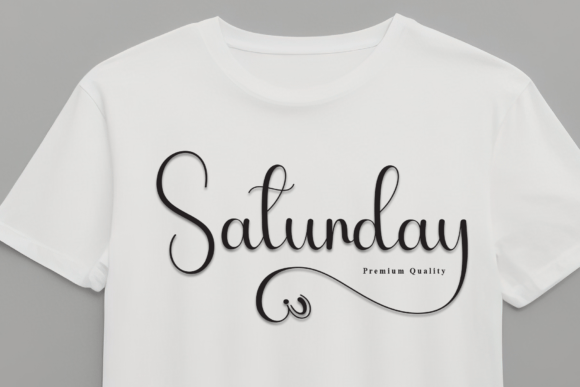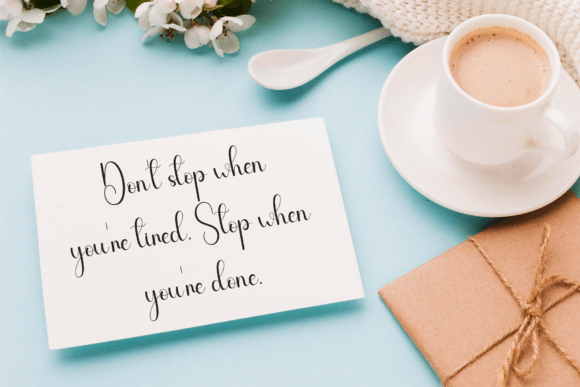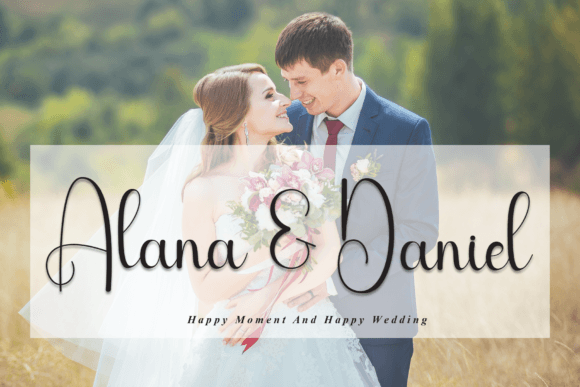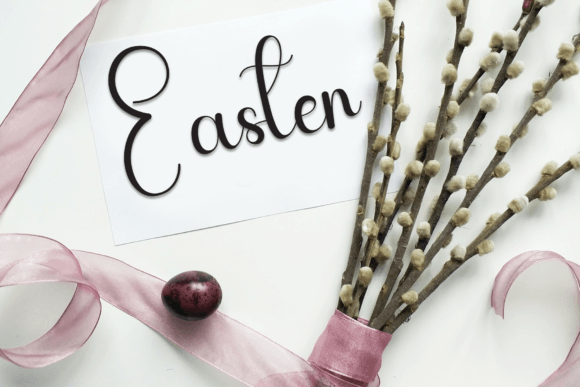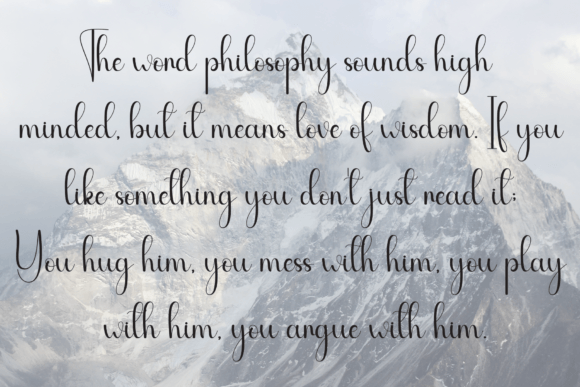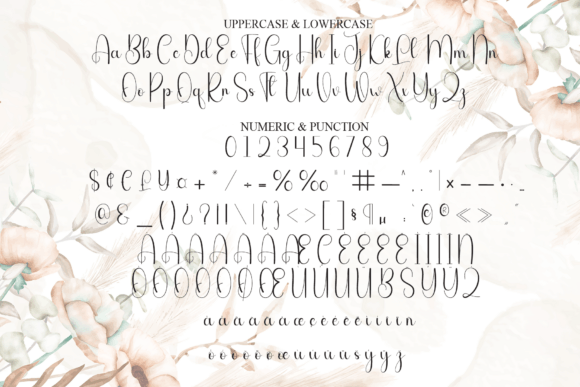
Discover the Delightful Charm of Anuttenty Font
Have you ever been in the middle of designing a project, and suddenly, you’re stuck on finding the perfect font? I recall a recent experience where I was working on a wedding invitation project, and my client specifically asked for a font that exuded warmth and charm. After scouring through numerous font libraries, I stumbled upon Anuttenty Font, and it was love at first sight! ✨ In this article, we’ll embark on a joyous design journey with this delightful and personable handwritten display font.
A Personal Review of Anuttenty Font
- ✨ Lively and charming style that conveys warmth and personality
- ✅ Perfect for wedding invites, heartfelt cards, and projects that require a delightful charm
- 💫 Striking yet sophisticated, adding an enchanting, fun spin to your messages
- 🎨 Highly versatile, suitable for various design projects, from digital to print
While Anuttenty Font is an excellent choice for many projects, there are a few minor considerations to keep in mind:
- 🤔 Limited availability of Cyrillic or non-English characters
- ⚠️ May not be the best fit for body text or lengthy content due to its decorative nature
The Backstory of Anuttenty Font
Anuttenty Font was designed with the intention of creating a unique and charming handwritten display font. The designer’s inspiration came from traditional handwriting and calligraphy, with a focus on creating a font that exudes warmth and personality. The result is a font that is both striking and sophisticated, perfect for adding a touch of delight to your designs.
Q: What type of projects is Anuttenty Font best suited for?
A: Anuttenty Font is perfect for wedding invites, heartfelt cards, and projects that require a delightful charm.
Q: Is Anuttenty Font available in multiple languages?
A: Anuttenty Font may have limited availability of Cyrillic or non-English characters, so it’s best to check the font’s character set before use.
Q: Can I use Anuttenty Font in my digital designs?
A: Yes, Anuttenty Font can be used in digital designs, such as social media graphics, email templates, and website headers.